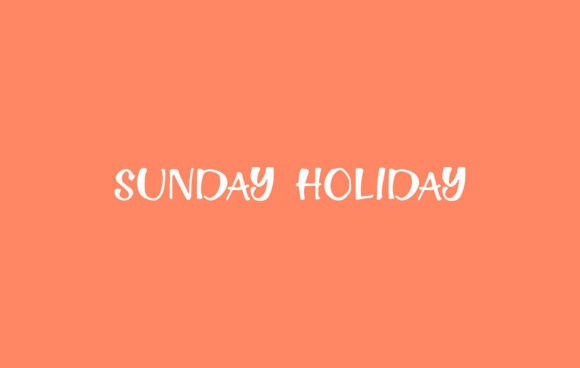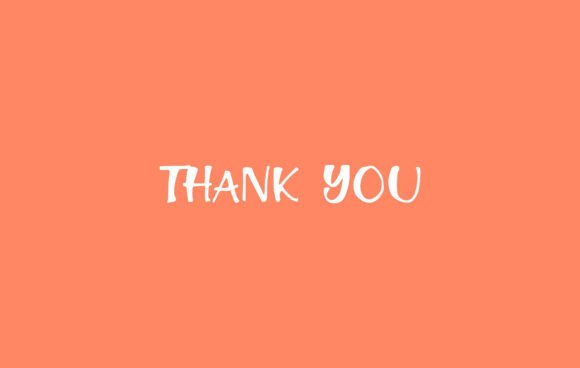
Introduction to Myna Font
As designers, we’ve all had those ‘aha’ moments when the perfect font appears, and our creative project comes to life. For me, it was when I stumbled upon the Myna Font – its friendly and natural style instantly sparked a wave of inspiration. The Myna Font is more than just a typeface; it’s a design resource that can elevate your work to new heights.
What sets Myna Font apart is its unique blend of high-quality design and versatility. Whether you’re working on a personal project or a commercial one, this font is sure to bring a touch of warmth and personality to your work. Plus, with a free download option available, you can experiment with Myna Font without breaking the bank. And with a transparent background, the possibilities for creative expression are endless.
Key Features of Myna Font
- High-quality design with a transparent background, perfect for creative projects.
- Optimized for high-resolution displays, with a resolution of 300 DPI or higher.
- Unique and stylish font, ideal for use in creative projects, such as logos, branding, and typography.
- Designed to be versatile and adaptable, suitable for use in a wide range of creative projects and designs.
Honest Review: Myna Font
I recently stumbled upon the Myna Font, and I’m excited to share my thoughts on this design resource. As a designer, I’m always on the lookout for high-quality fonts to elevate my creative projects. The Myna Font is available for free download, which is a definite plus.
One of the things that stands out about the Myna Font is its versatility. It’s perfect for a variety of creative projects, from logos to typography-heavy designs. The font features a transparent background, which makes it easy to use in different design scenarios.
- High-quality design with a unique aesthetic
- Perfect for creative projects that require a touch of elegance
- Transparent background for easy design integration
- ⚠️ Limited character set, which may not be suitable for longer texts
- ⚠️ Not as versatile as some other fonts for body text
Overall, the Myna Font is a solid addition to any designer’s toolkit. While it may not be perfect for every project, its unique aesthetic and high-quality design make it a great resource for creative projects that require a touch of elegance. ✨ I’m looking forward to using it in my future designs.
Some tips for getting the most out of Myna Font include experimenting with different font sizes and styles to create visual interest. You can also use Myna Font in combination with other design elements to create a cohesive look. Common use cases for Myna Font include creating logos, brochures, and other marketing materials.
Alternatives to Myna Font
Great Vibes is a high-quality, elegant script font perfect for creative projects that require a touch of sophistication. It’s ideal for wedding invitations, event posters, and other design resources that demand a sense of luxury. With its transparent background and free download option, Great Vibes Font is a great alternative to Myna Font for designers seeking a more refined look.
Comparison to Myna Font: While Myna Font has a more playful and casual tone, Great Vibes Font offers a more polished and sophisticated feel. Great Vibes Font is better suited for formal events and high-end design projects, whereas Myna Font excels in more casual and creative contexts.
Dancing Script is a beautiful, high-quality script font ideal for designers working on creative projects that require a sense of movement and energy. It’s perfect for event invitations, social media graphics, and other design resources that demand a lively and engaging tone. With its free download option and transparent background, Dancing Script Font is a great alternative to Myna Font for designers seeking a more dynamic look.
Q: Does the Myna Font have a transparent background?
Yes, the Myna Font features a transparent background, making it easy to overlay text on images or other design elements. This versatility is particularly useful for designers working on creative projects that require a high level of visual sophistication.